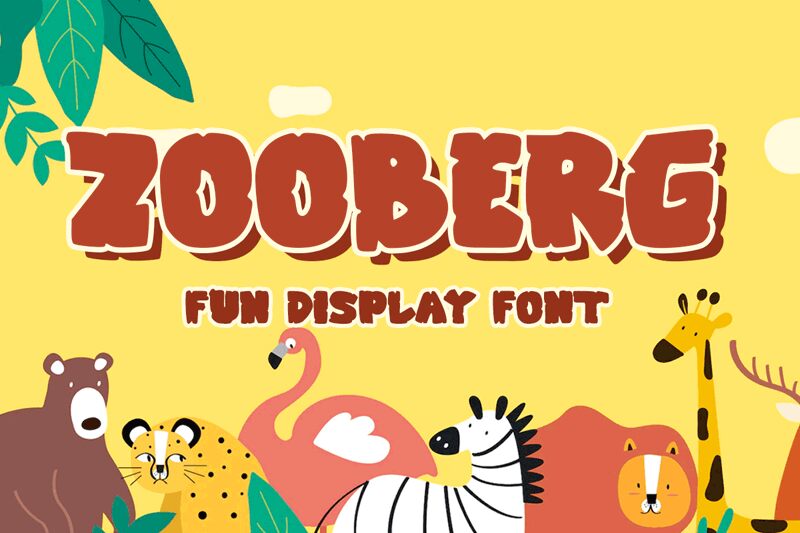
Zooberg
Are you looking for a font that adds a playful and energetic touch to your creative projects? Look no further than Zooberg, a unique display font designed by Muhammad Yafinuha.
With its extra-bold weight and fun cartoon style, Zooberg is perfect for making a statement in diverse design projects such as children's books, posters, packaging, and branding materials. Its quirky and distinctive characteristics make it suitable for adding personality and charm to any design.
Whether you're aiming for a lighthearted or whimsical look, Zooberg is the perfect choice to bring your ideas to life.